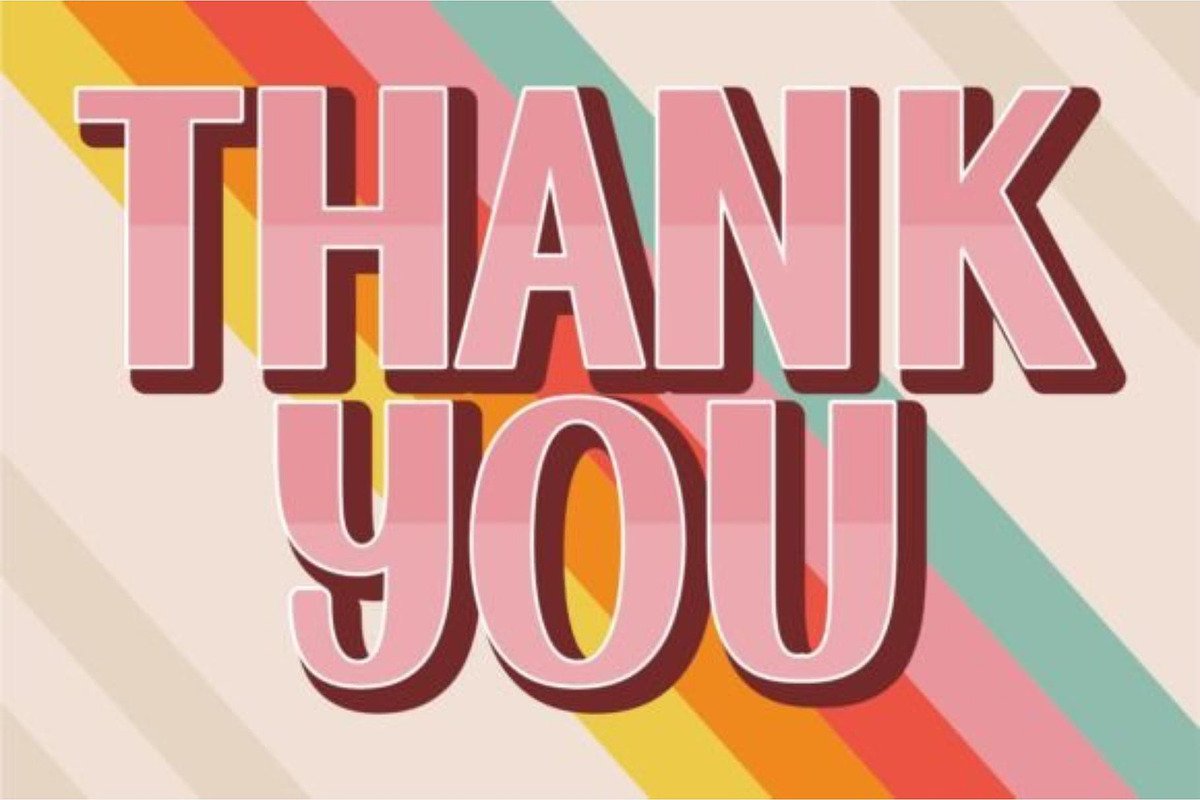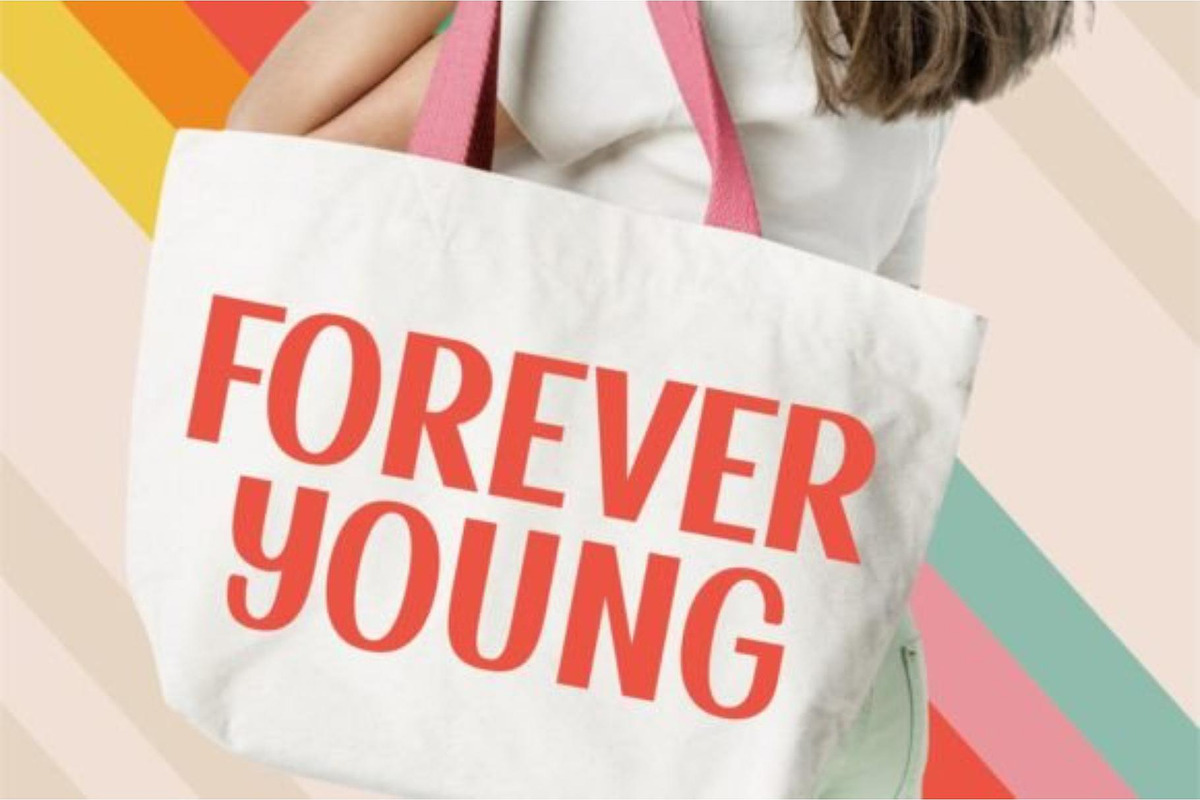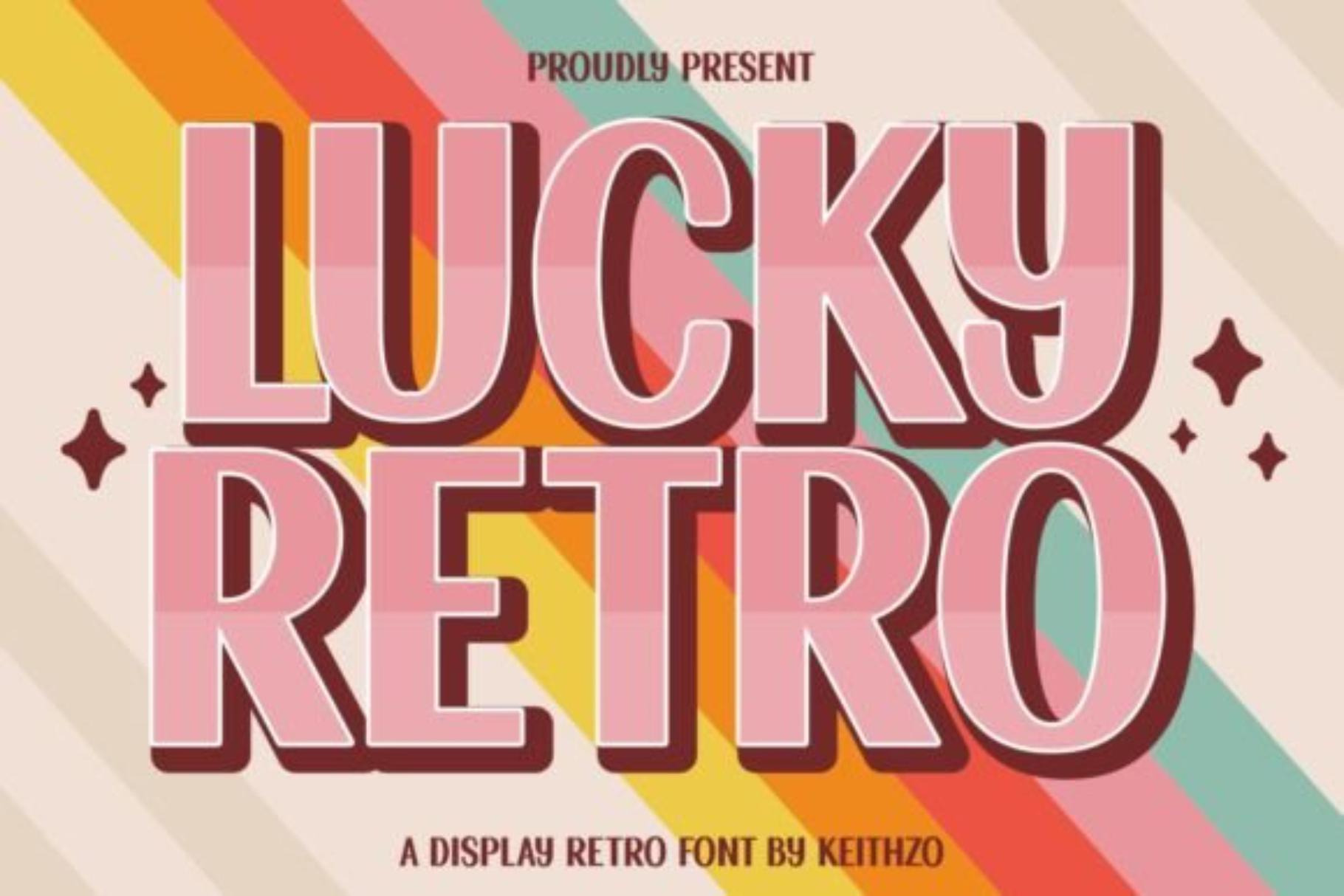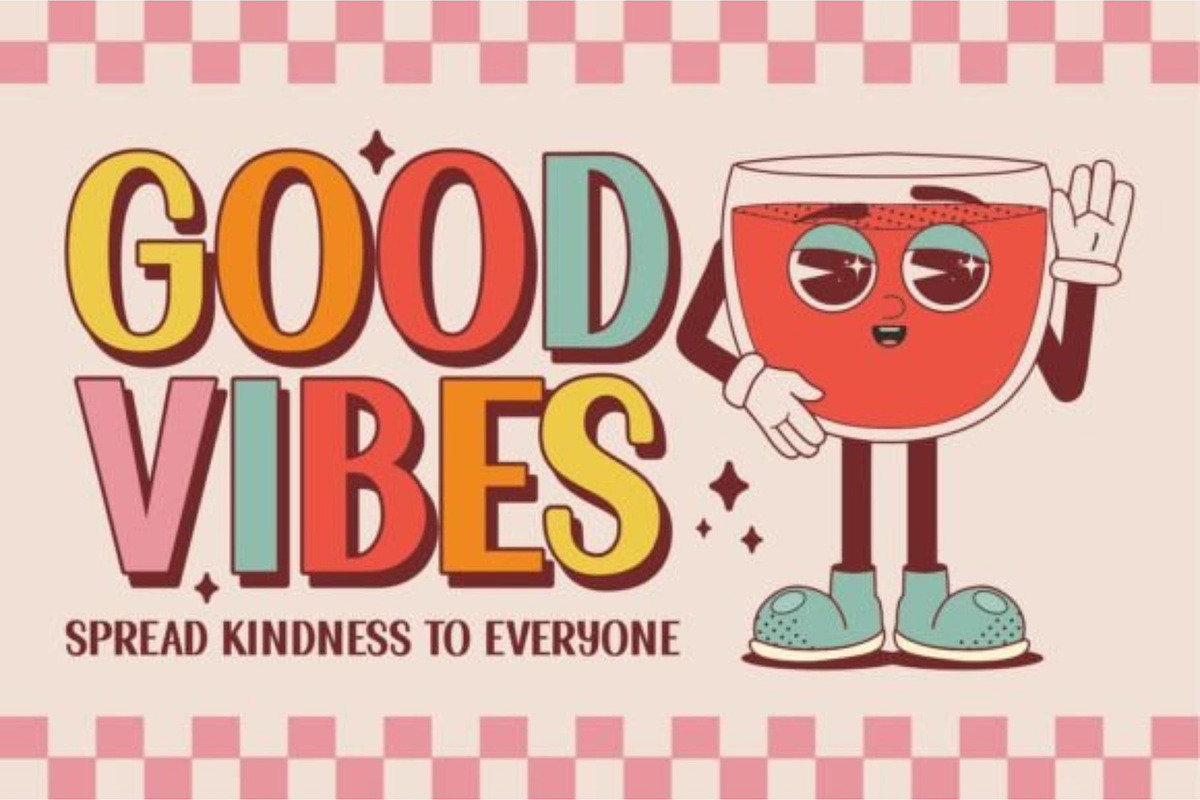
Lucky Retro | Groovy Retro Font
Lucky Retro is a bold retro display font inspired by classic 70s typography and vintage design trends.
Its groovy curves, nostalgic personality, and eye-catching style make it perfect for creating standout branding, posters, apparel designs, and retro-themed projects.
• Retro Logos
• Vintage Branding
• T-Shirt Designs
• Posters & Flyers
• Product Packaging
• Social Media Graphics
• Album Covers
• Café & Restaurant Branding
• Stickers & Merchandise
• Event Promotions
Lucky Retro brings authentic vintage charm and groovy 70s energy to any creative project, making it perfect for designers looking to create nostalgic and memorable typography.